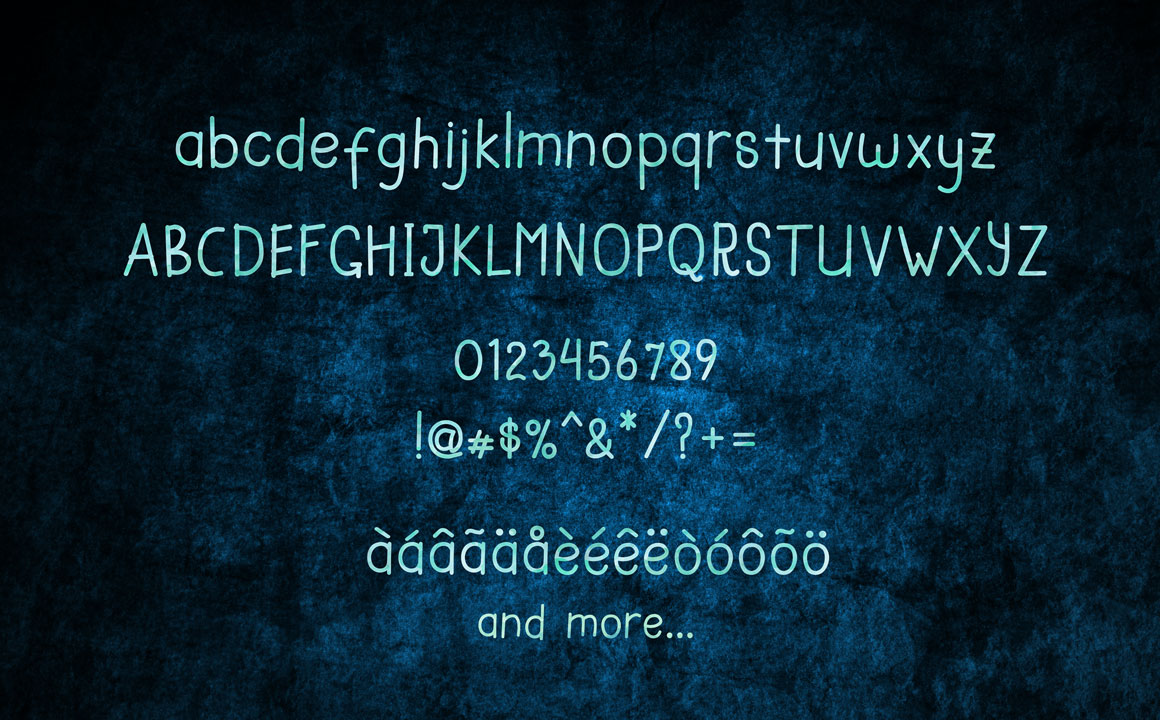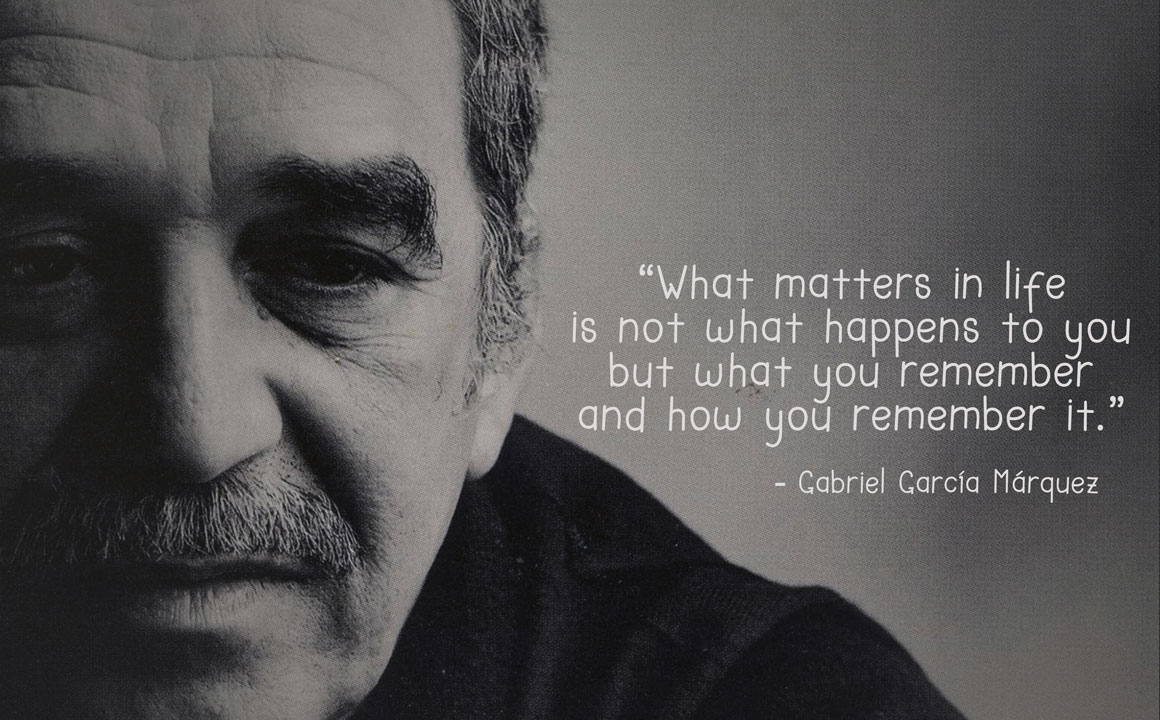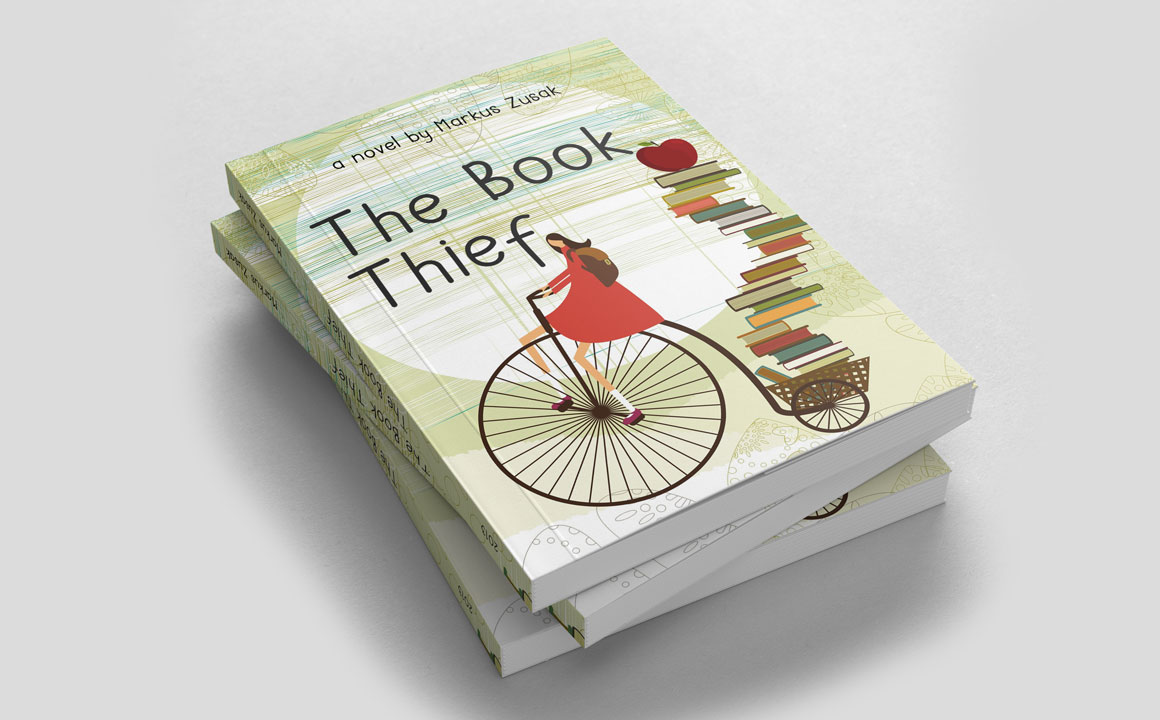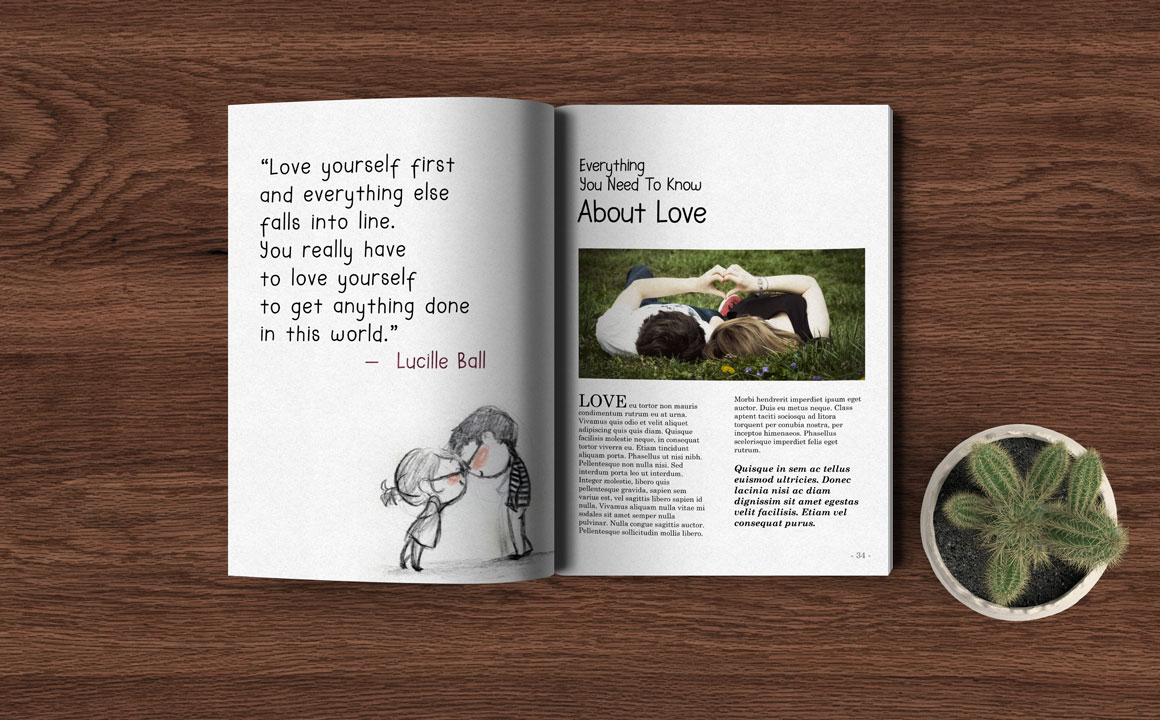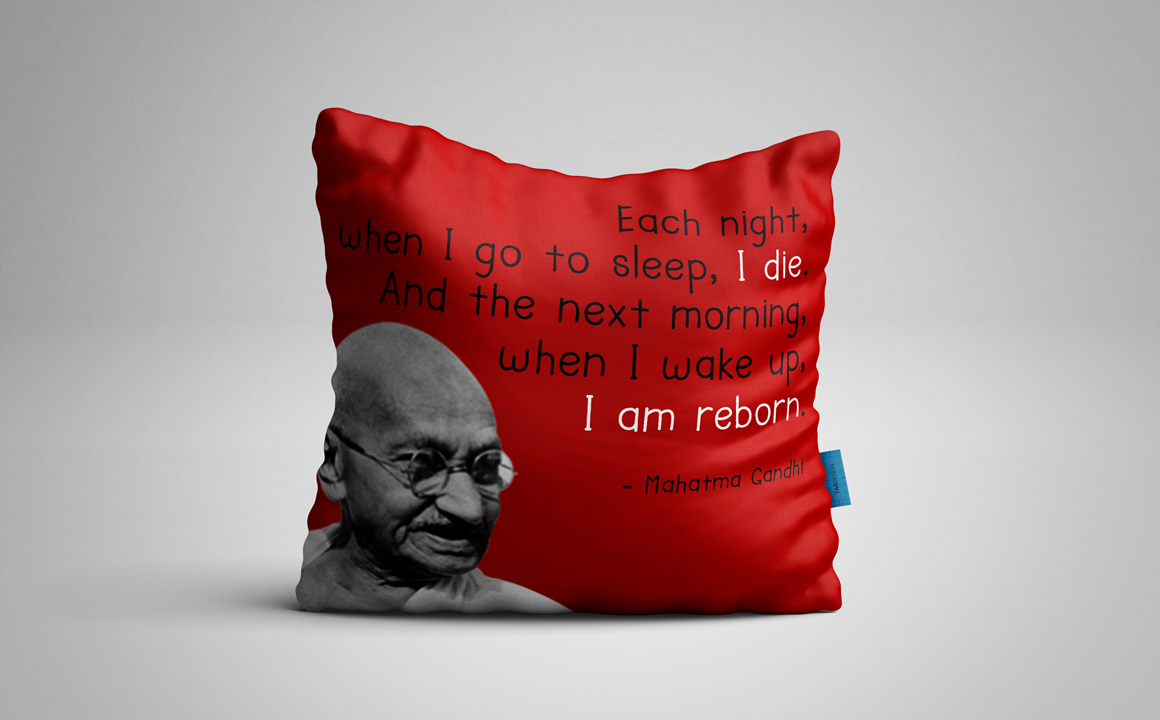
Forsaken Font: A Simple yet Versatile Sans Serif Handwritten Typeface
In the world of typography, a good font can make all the difference in a design project. It’s not just about conveying a message, but also about evoking emotions and creating a lasting impression. If you’re a designer or crafter looking for a font that embodies simplicity, minimalism, and versatility, look no further than the Forsaken Font.
What is Forsaken Font?
Forsaken is a simple, sans serif handwritten typeface that has been gaining popularity among designers and crafters alike. Its clean lines, minimal ornamentation, and effortless flow make it perfect for a wide range of design projects. Whether you’re working on a friendly and approachable design or a more rustic and imposing one, Forsaken Font is up to the task.
Key Features of Forsaken Font
So, what makes Forsaken Font so special? Here are some of its key features:
- Simplicity: Forsaken Font is characterized by its simplicity and minimalism. It has a clean and uncluttered design that makes it easy to read and understand.
- Sans Serif: As a sans serif font, Forsaken Font doesn’t have any decorative lines or flourishes at the ends of its letters. This gives it a modern and sleek look that’s perfect for digital designs.
- Handwritten: Despite its simplicity, Forsaken Font still has a handwritten feel to it. This gives it a personal and approachable touch that’s perfect for friendly designs.
- Versatility: Forsaken Font is incredibly versatile and can be used in a wide range of design projects. Whether you’re working on a logo, brochure, website, or social media post, Forsaken Font is up to the task.
Use Cases for Forsaken Font
Forsaken Font is perfect for a wide range of design projects, including:
- Logos: Forsaken Font is a great choice for logos that need to be simple, yet effective. Its clean lines and minimal ornamentation make it easy to recognize and remember.
- Brochures: Whether you’re creating a brochure for a business or organization, Forsaken Font is a great choice. Its readability and simplicity make it perfect for conveying information.
- Websites: Forsaken Font is also a great choice for websites. Its modern and sleek design makes it perfect for digital designs, and its readability ensures that your content is easy to understand.
- Social Media: Forsaken Font is perfect for social media posts, including Facebook, Twitter, and Instagram. Its simplicity and versatility make it easy to use in a wide range of social media designs.
- Crafting: Forsaken Font is also a great choice for crafters who want to add a personal touch to their projects. Whether you’re creating a handmade card or scrapbook, Forsaken Font is a great choice.
Why Choose Forsaken Font?
So, why choose Forsaken Font over other fonts? Here are just a few reasons:
- Easy to Read: Forsaken Font is incredibly easy to read, even at small sizes. This makes it perfect for designs that need to convey a lot of information.
- Versatile: Forsaken Font is incredibly versatile and can be used in a wide range of design projects.
- Modern: Forsaken Font has a modern and sleek design that’s perfect for digital designs.
- Personal: Forsaken Font has a personal and approachable touch that’s perfect for friendly designs.
| Font Name | Forsaken Font |
| Author | VanRoem |
In conclusion, Forsaken Font is a simple yet versatile sans serif handwritten typeface that’s perfect for a wide range of design projects. Its simplicity, minimalism, and readability make it easy to use and understand, while its modern and sleek design ensures that it looks great in both digital and print designs. Whether you’re a designer or crafter, Forsaken Font is a great choice for any project.